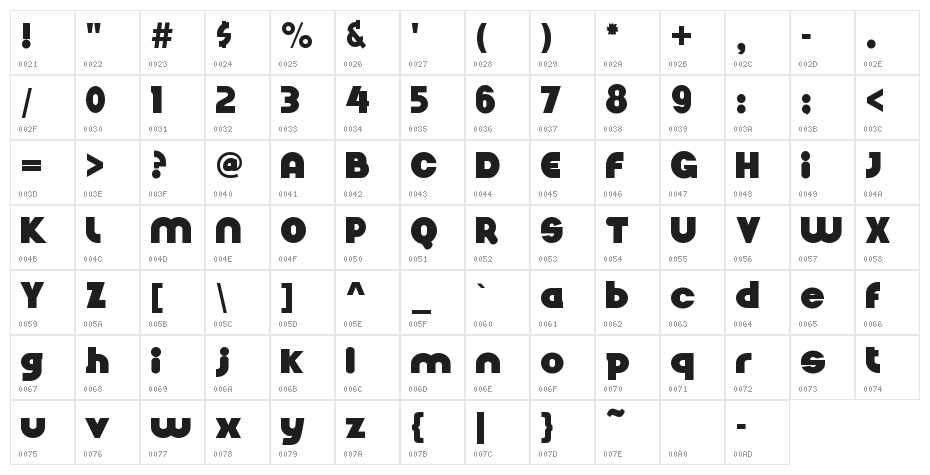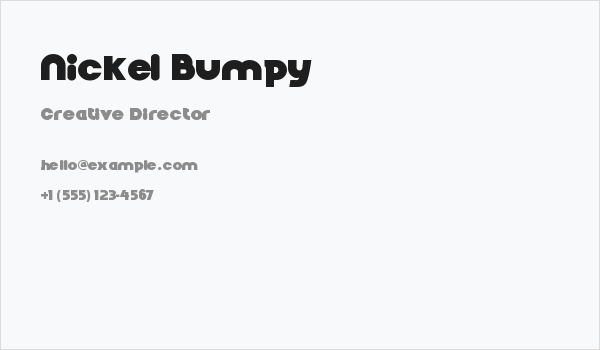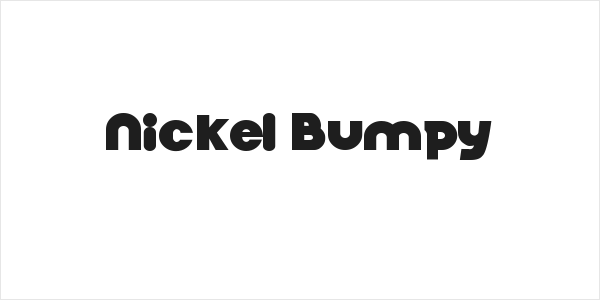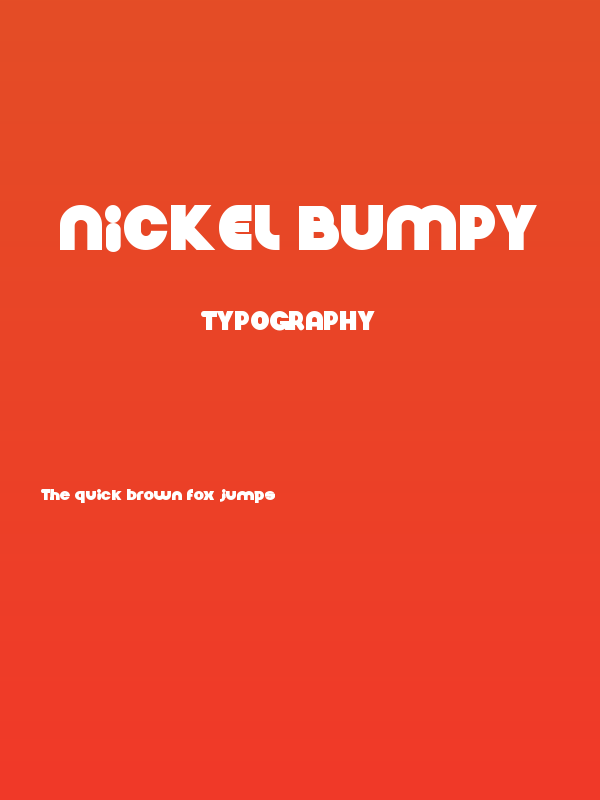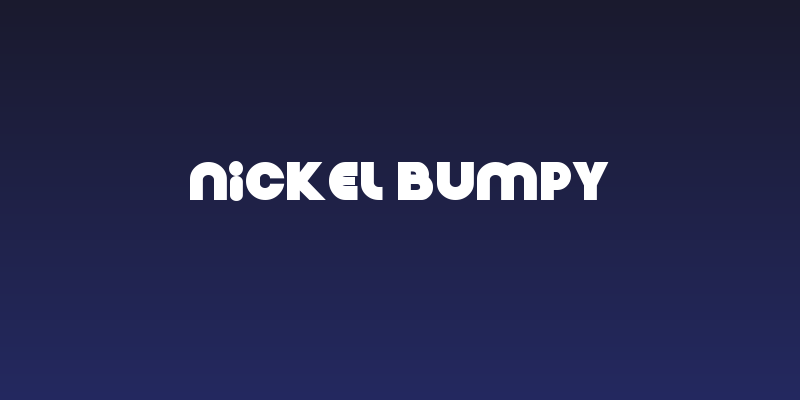
Nickel Bumpy Font
Nickel Bumpy Description
This font features a bold and playful design with rounded edges and a chunky appearance. The characters are uniformly thick, giving it a strong presence. The uppercase letters are particularly striking, with a consistent height and width that create a cohesive look. The lowercase letters maintain the same boldness, ensuring readability and impact. Numbers and special characters are designed to match the overall style, making them easily recognizable and visually appealing. The font's unique style is both modern and retro, making it versatile for various design needs.
| Overall Style | Modern, Retro |
| Proposed Projects | Ideal for branding, posters, headlines, and any project requiring a bold and playful aesthetic. |